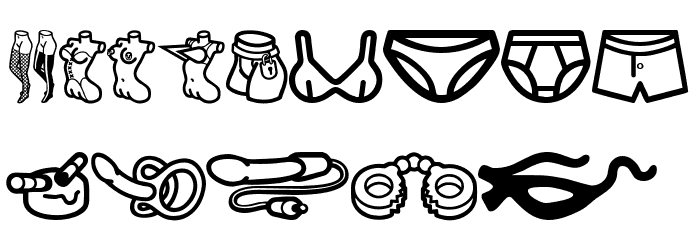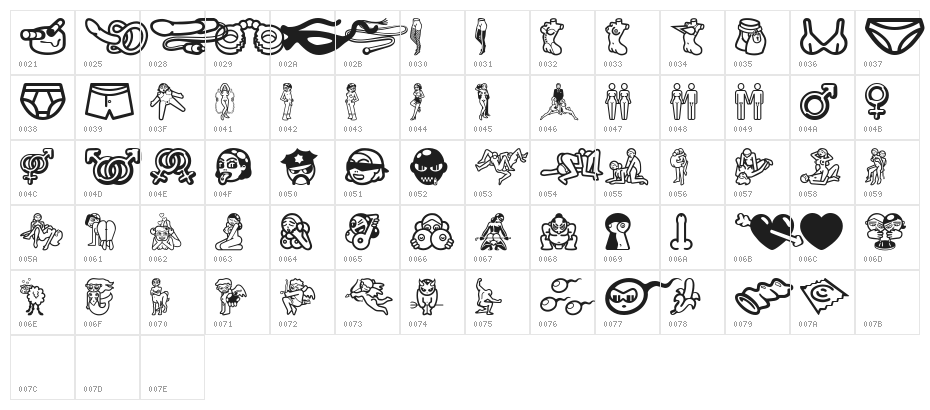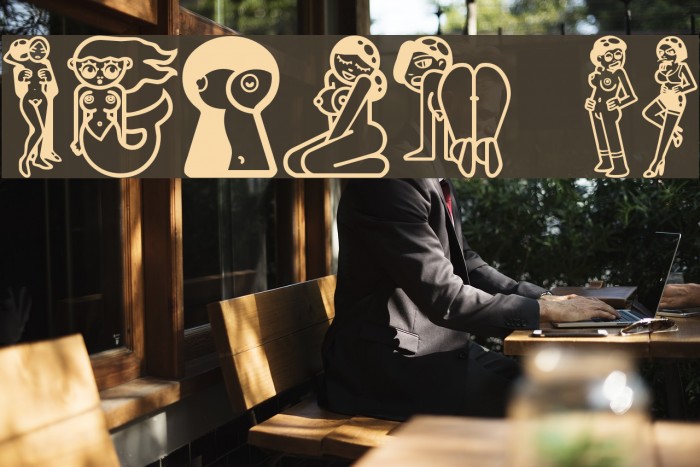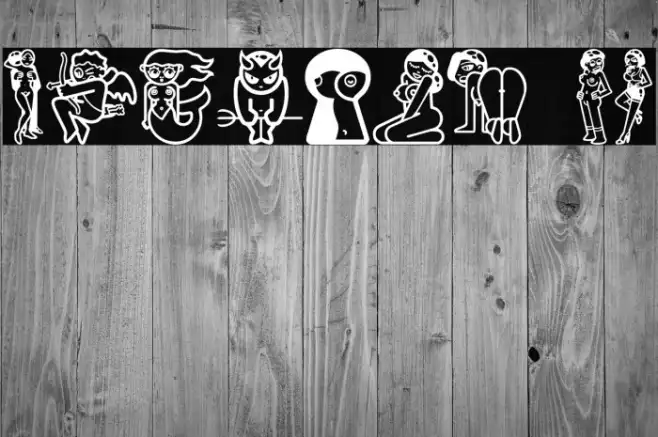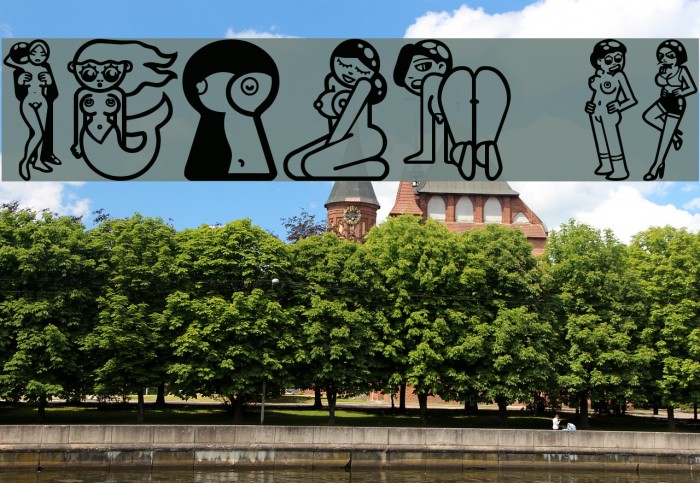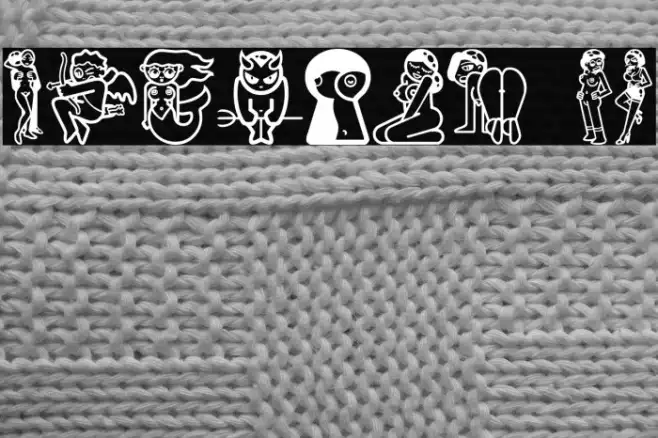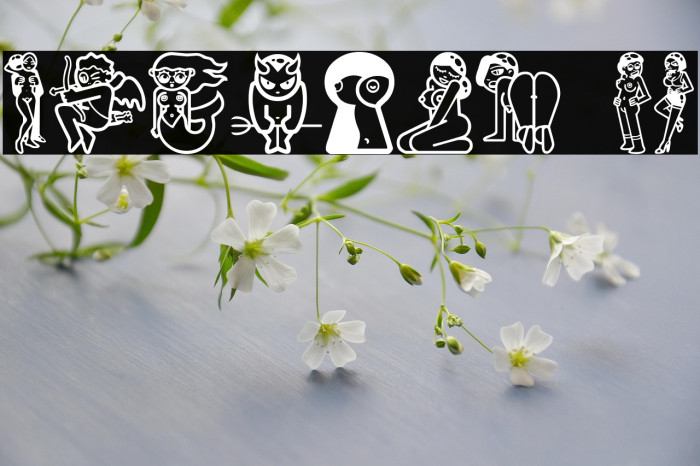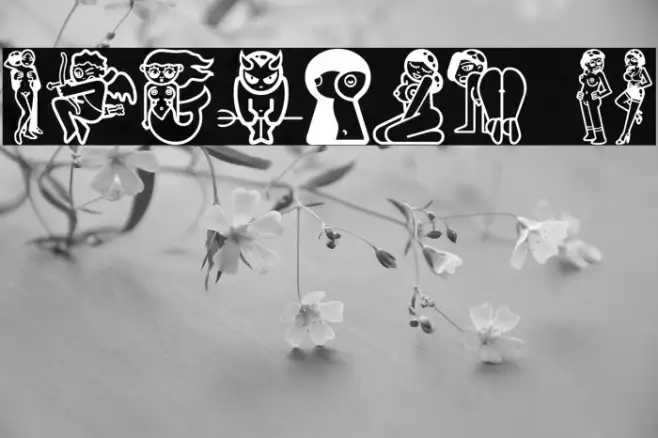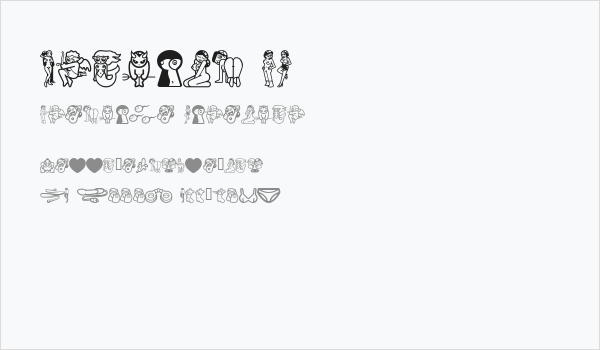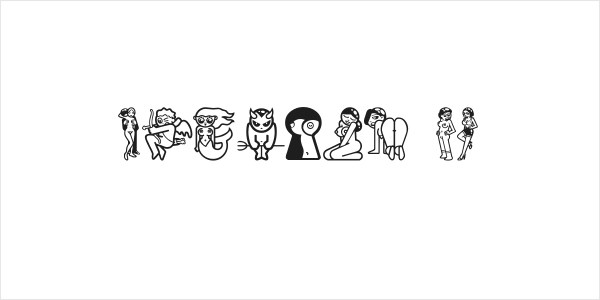
Erotica CD Font
Erotica CD Description
A highly illustrative and explicit dingbat font featuring erotic and sexual imagery, including stylized human figures, symbols, accessories, and objects related to adult themes. The glyphs are bold, outlined, and cartoon-like, with a playful yet provocative style. The characters are not traditional alphanumeric forms but rather pictorial representations.
| Overall Style | Decorative, Playful, Erotic |
| Use Case | Decorative icons, Themed graphics, Not suitable for body text or headlines. |
| Proposed Projects | Adult party invitations, novelty products, mature-themed posters, nightclub flyers, adult entertainment branding. |